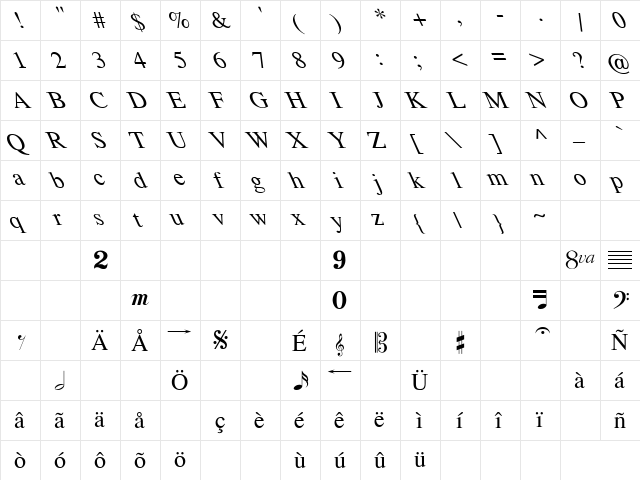
Tempo Font Extreme Lefti Regular
Design Context for Tempo Font Extreme Lefti Typeface
Tempo Font Extreme Lefti offers clean, dependable letterforms without strong stylistic allegiance, making it a practical choice for designers who need flexibility.